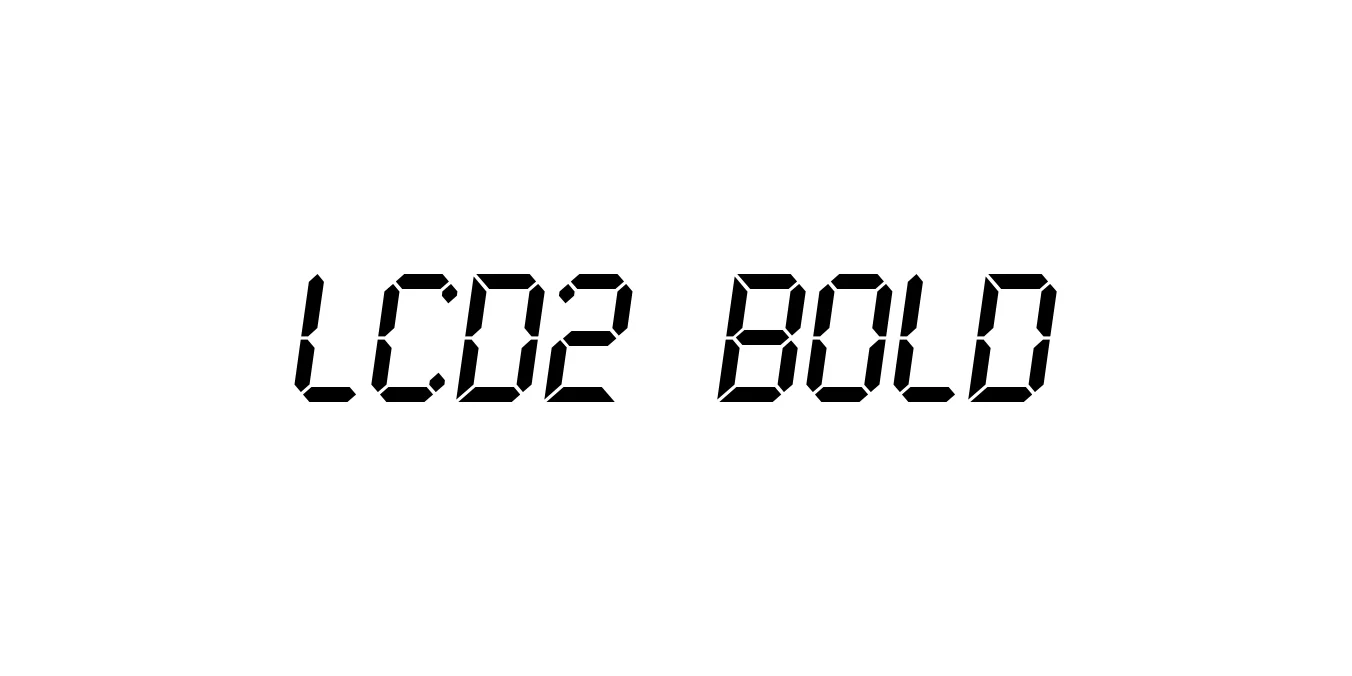
LCD2 Bold
Designed by Samuel Reynolds
| Category | Digital / Techno |
| Designer | Samuel Reynolds |
LCD2 Bold is a specialized digital typeface designed by Samuel Reynolds to perfectly emulate the visual appearance of classic seven-segment liquid crystal displays. This font captures the technical aesthetic of 1980s and 90s electronics, such as digital wristwatches, calculators, and early bedside alarm clocks. The bold variant provides a heavier weight that enhances readability on modern screens while maintaining the retro industrial feel of its physical inspirations.
The font is built on a monospaced grid, ensuring that each character occupies the same horizontal space, which is essential for simulating realistic digital readouts in user interfaces. Because of its authentic electronic structure, it has become a popular choice for designers working on sci-fi projects, technical manuals, and retro-themed branding. It remains one of the most accurate representations of the LCD segment style available in the digital typography world.
LCD2 Bold Best Uses
Perfect for simulating scoreboards, HUDs, and electronic readouts in gaming or app design.
Ideal for tech companies or music producers seeking a retro-futuristic or industrial logo.
Great for countdown timers, digital clocks, or technical data visualization on websites.
Effective for posters, flyers, and magazine headers with a high-tech or vintage electronics theme.